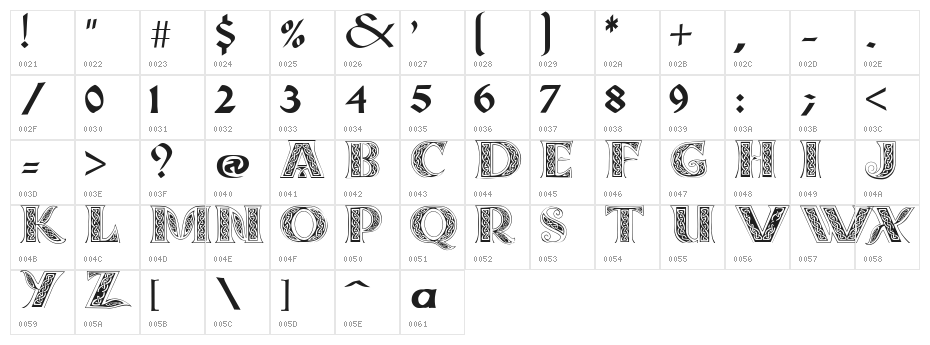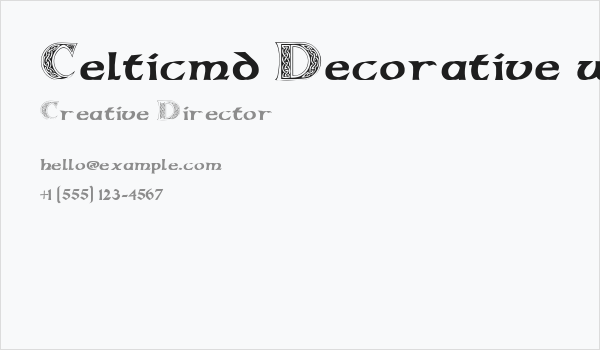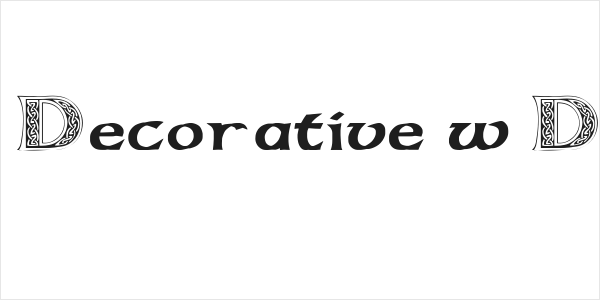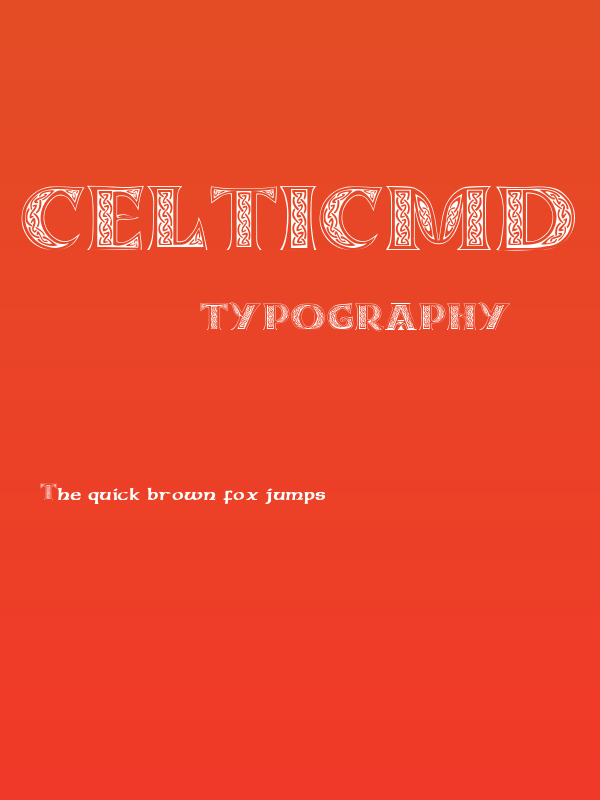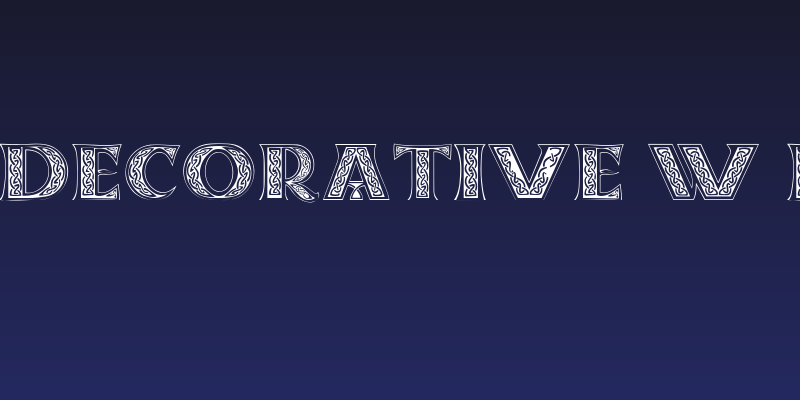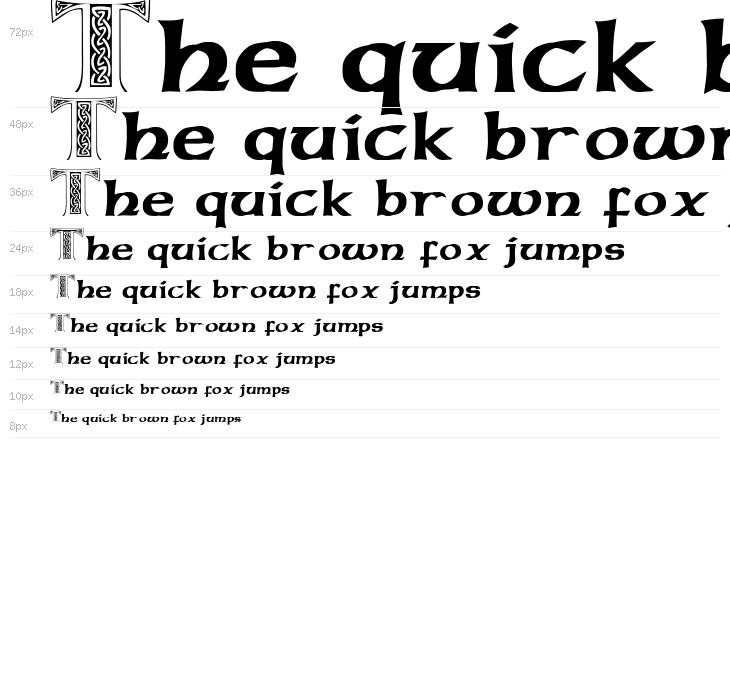
Celticmd Decorative w Drop Caps Font
Celticmd Decorative w Drop Caps Description
This font features a unique blend of decorative and Celtic-inspired elements, characterized by intricate patterns within the uppercase letters, reminiscent of traditional Celtic knotwork. The lowercase letters maintain a bold and dynamic style, with sharp angles and flowing curves that add a sense of movement and energy. The numerals are bold and slightly angular, complementing the overall aesthetic. Special characters are designed with a similar flair, ensuring consistency across all glyphs. This font is ideal for projects that require a touch of historical or cultural depth, while still maintaining a modern edge.
| Proposed Projects | Ideal for use in cultural event posters, historical themed designs, book covers, and branding that requires a touch of tradition and elegance. |